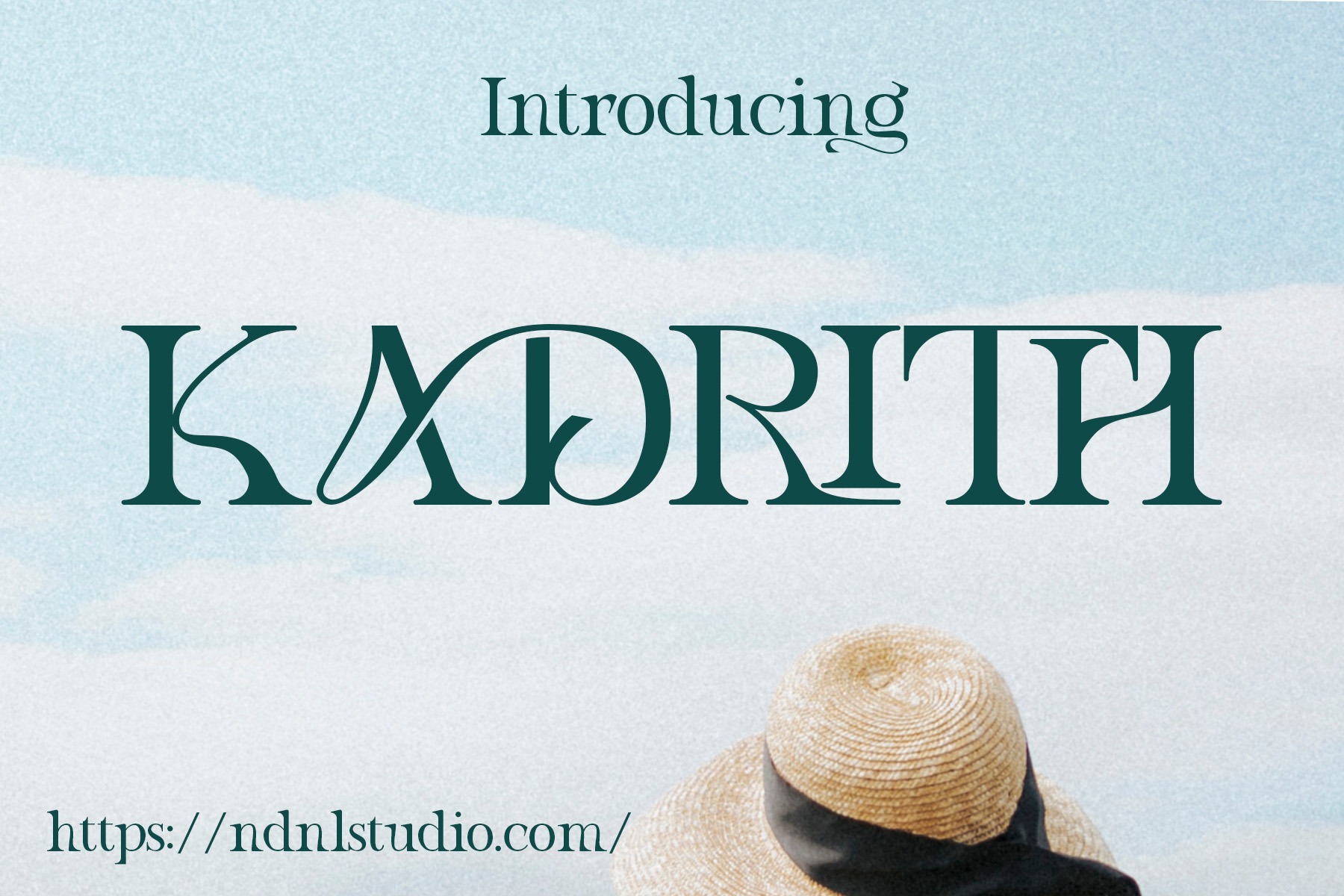
Kadrith – Modern Serif Font
Kadrith – Modern Serif Font is a stylish typeface that enhances visual appeal and works effortlessly in many design contexts. Kadrith is a modern serif typeface that embodies both elegance and sophistication. With graceful curves and a timeless structure, it brings a distinctive balance between classic charm and contemporary flair. Perfect for branding, magazine covers, posters, and editorial designs where luxury and refinement are desired.